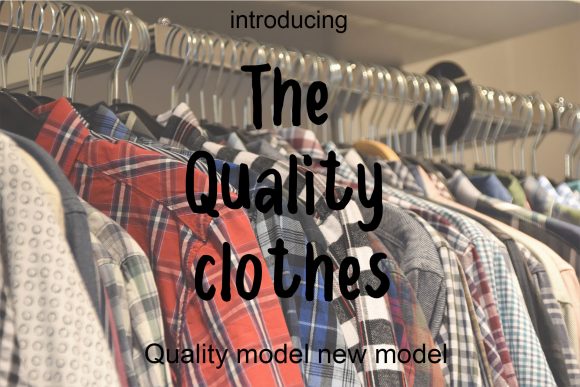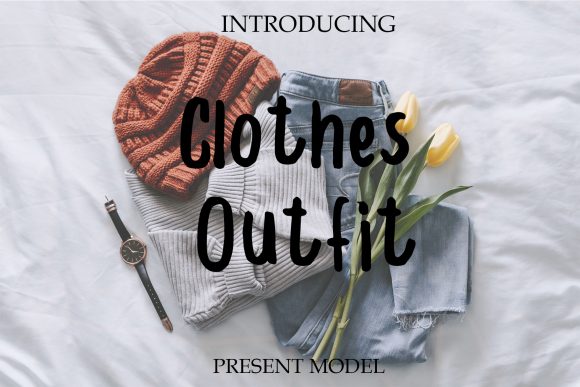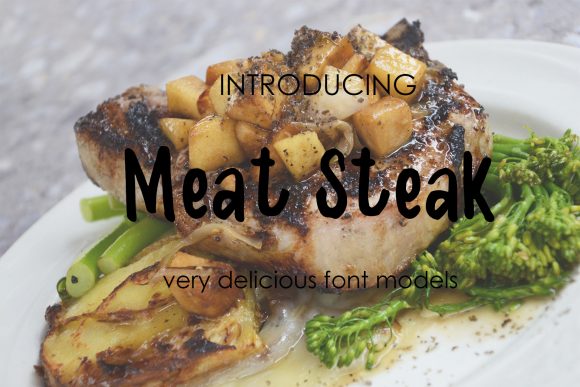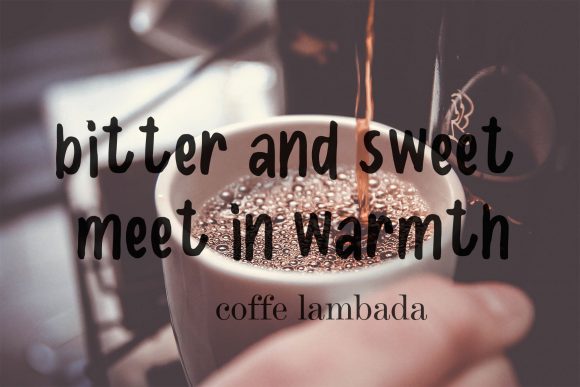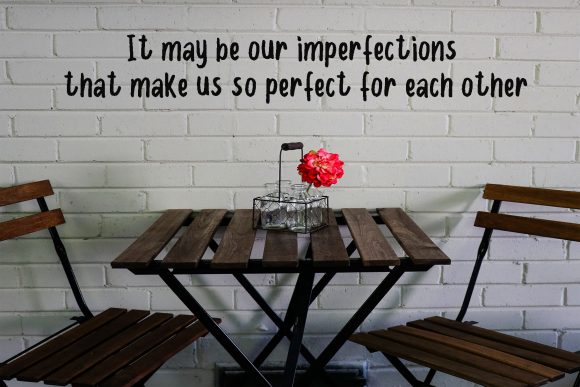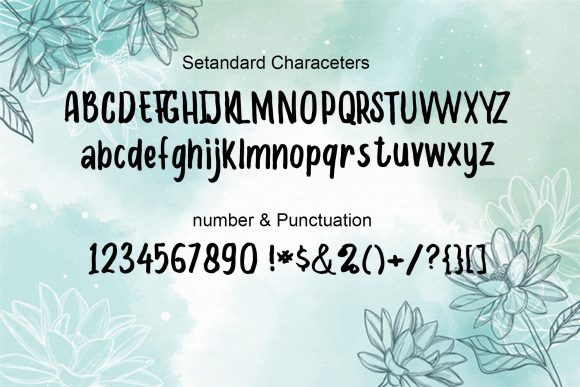
Ackerley Font
About Ackerley Font
Ackerley is a cute and friendly handwritten font. Warm, romantic and jolly, this font will turn each of your project ideas into real works of art. Have fun with this beautiful font and explore its endless variations.